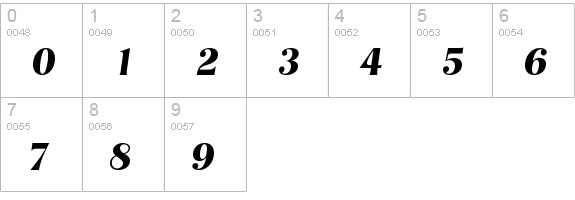
Introducing NashvilleEF-DemiBoldItalic font, a versatile and elegant typeface that exudes sophistication and style. This unique font features a perfect blend of boldness and elegance, making it ideal for a wide range of design projects. With its distinctive italicized style and subtle demibold weight, NashvilleEF-DemiBoldItalic font adds a touch of modernity and flair to any text or design layout. Whether you're creating a logo, branding materials, or editorial content, this font is sure to make a statement. And the best part? NashvilleEF-DemiBoldItalic font is available for free download at FontsMarket.com. So go ahead and elevate your designs with this stunning font today!